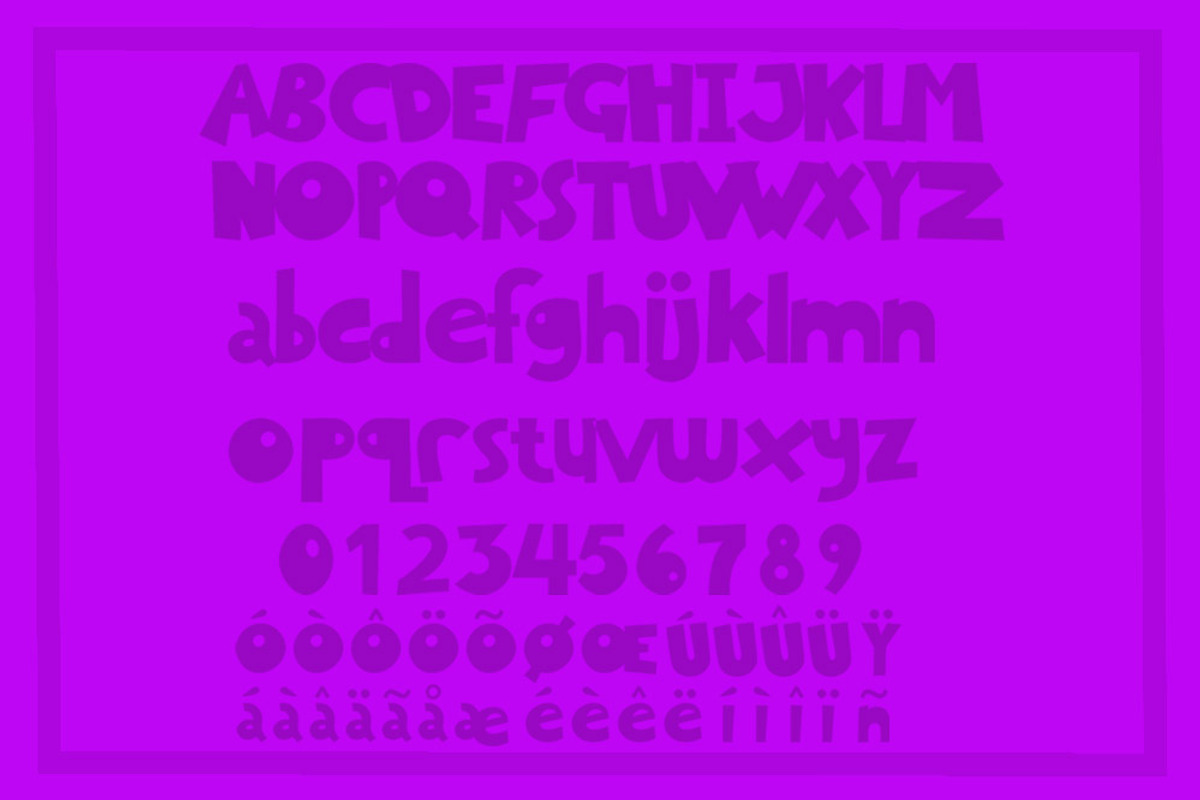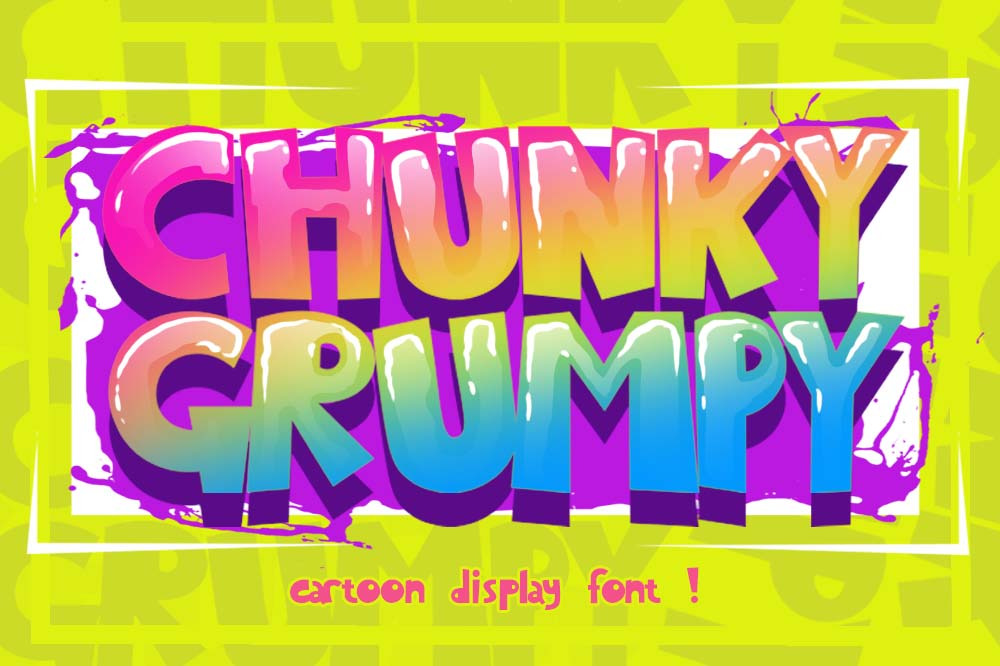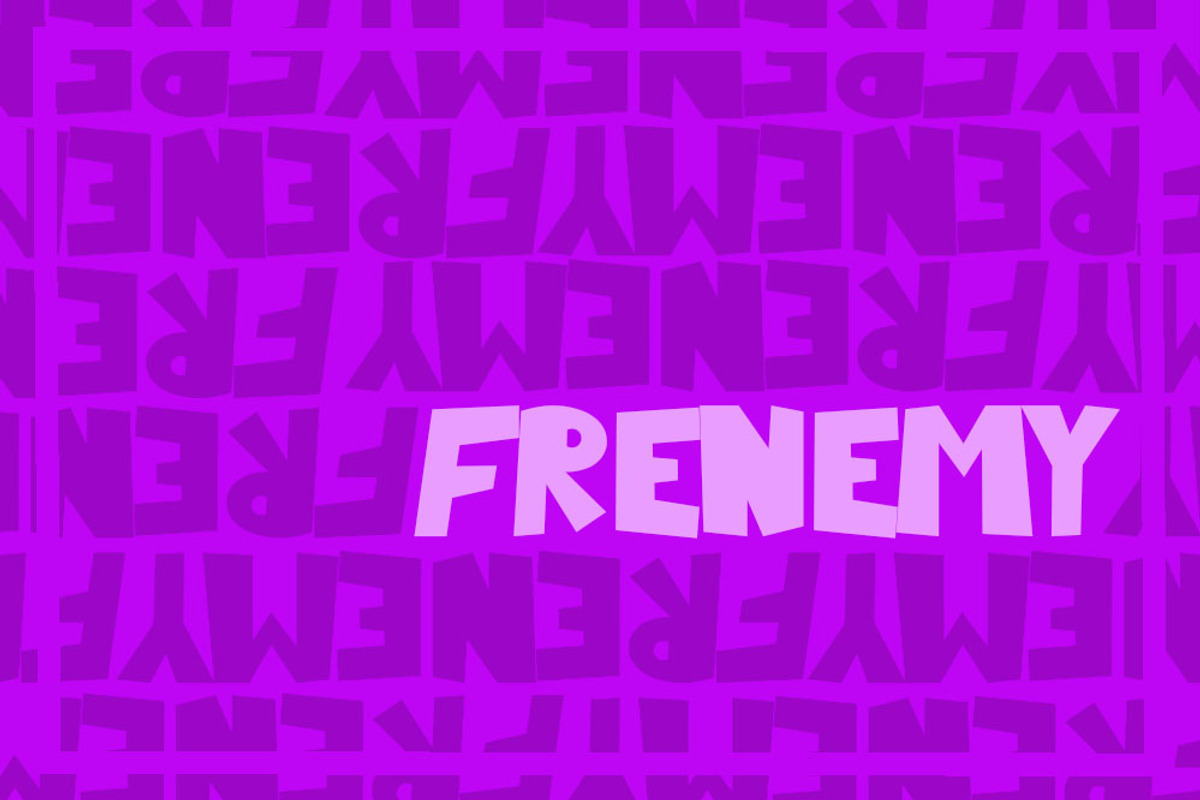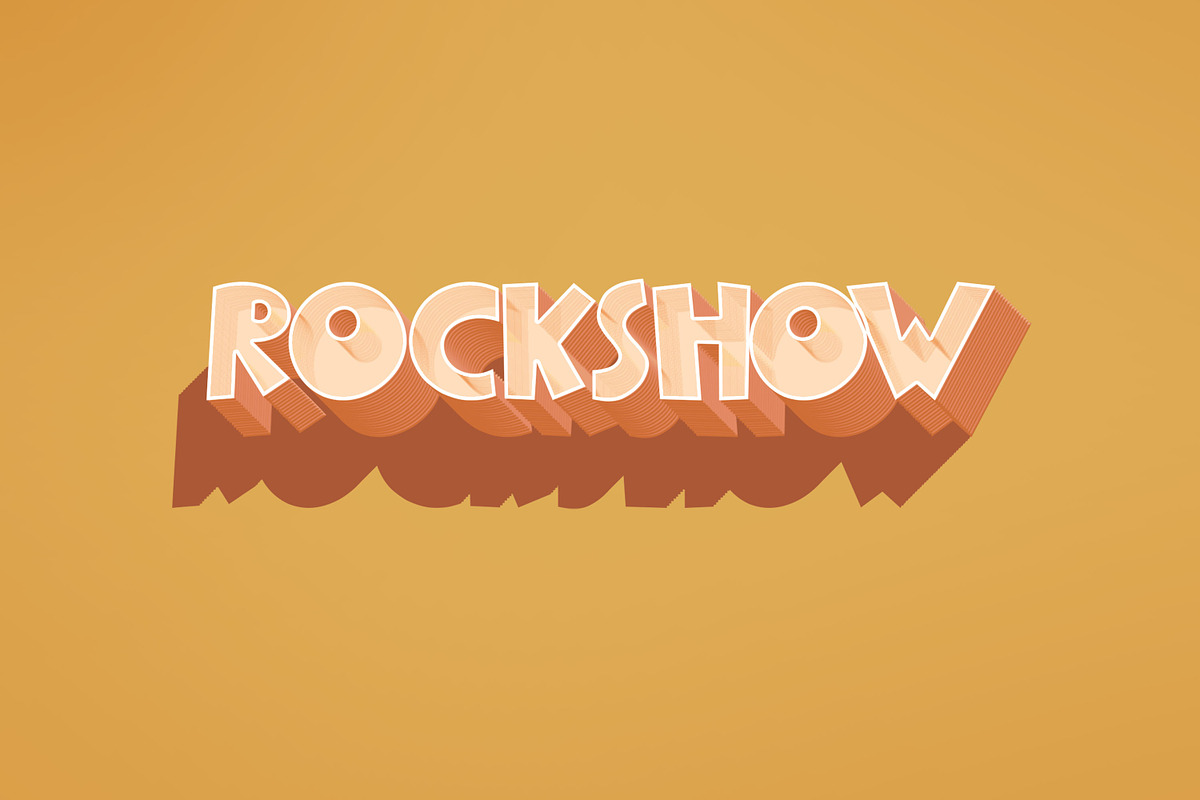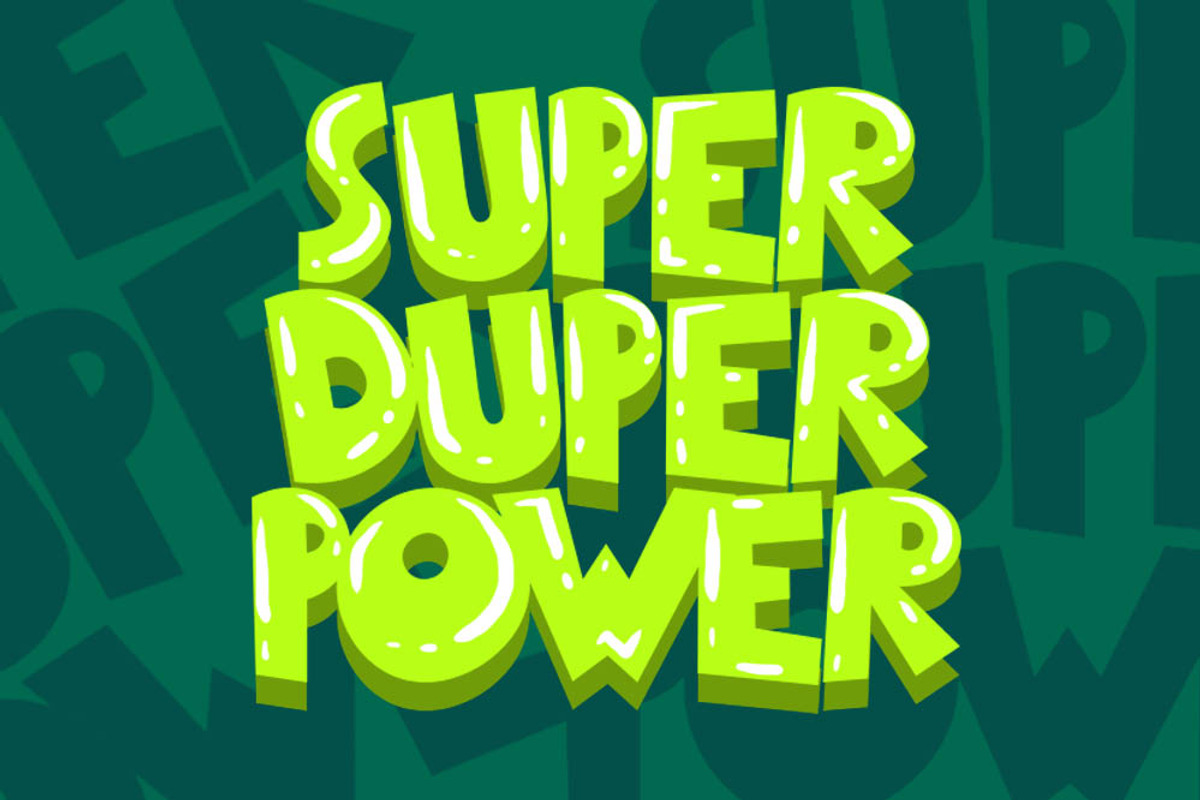
CHUNKY GRUMPY cartoon display font
introduces CHUNKY GRUMPY cartoon display fonts for various purposes. such as, branding, clothing, logos and others. This font is easy to use and mix and match with various media. available in otf and ttf formats and is equipped with multi language. thanks.